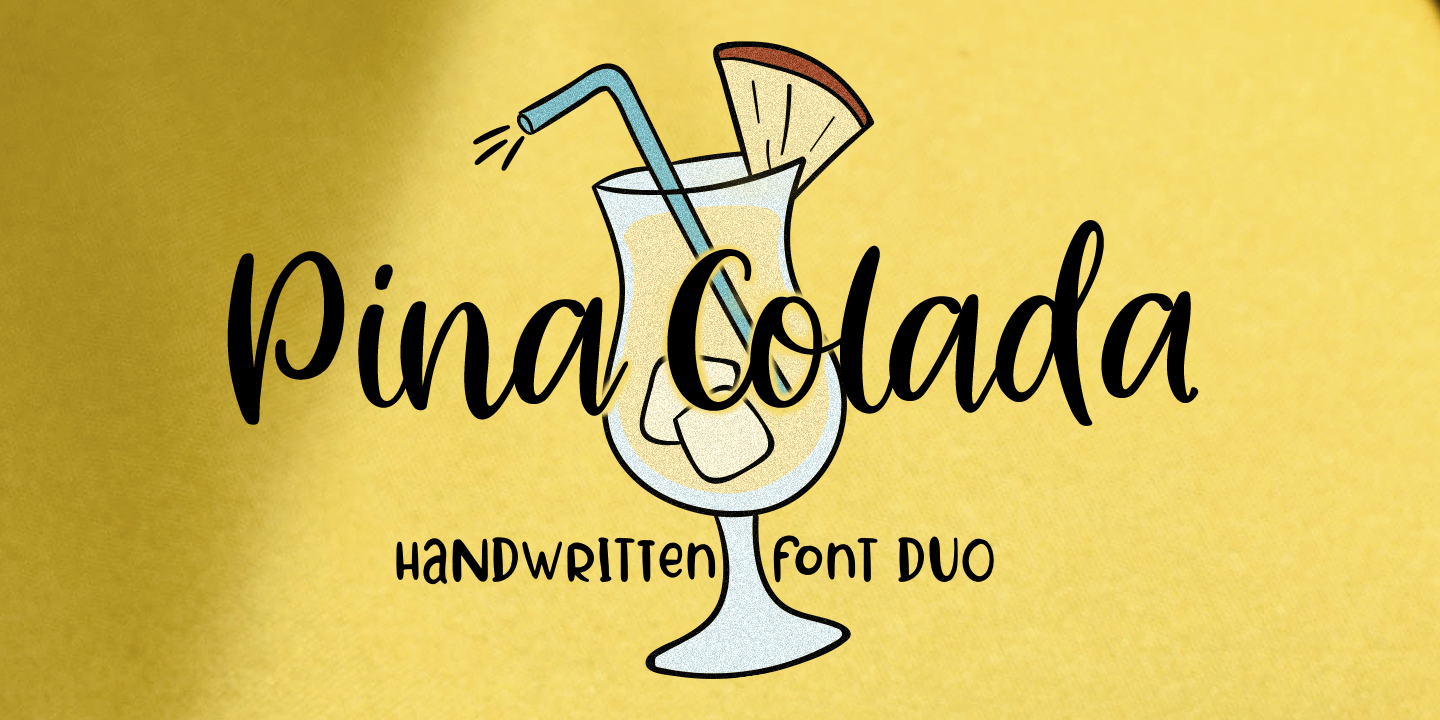
Pina Colada Font is perfect for tropical cocktail bars, beachside restaurant menus, vacation resort branding, summer drink packaging, poolside party invitations, Caribbean cruise promotions, tiki lounge signage, and relaxing spa advertisements. This refreshing typeface excels in leisure hospitality applications, tropical beverage designs, and any project requiring laid-back sophistication that captures the essence of island relaxation and coconut-kissed paradise through smooth visual elegance.
What makes Pina Colada Font exciting is its incredible ability to embody the smooth, creamy essence of tropical luxury and vacation bliss through elegantly flowing letterforms that instantly evoke feelings of paradise relaxation. The font features smoothly crafted characters with tropical curves and coconut-cream proportions that communicate pure vacation indulgence and island sophistication, making it ideal for brands seeking to establish premium tropical connections and convey luxurious escape experiences. Its creamy personality ensures immediate association with tropical luxury and sophisticated relaxation.
Pina Colada Font family includes multiple weights and styles: Regular, Bold, Light, Medium, Italic variations, and coconut-inspired alternates with tropical flourishes and paradise embellishments. Each family member maintains the distinctive smooth character while offering comprehensive design options for luxurious tropical campaigns, from gentle vacation text to creamy headlines that celebrate island luxury and tropical sophistication through elegant beverage-inspired typography.
Whether you're designing tropical luxury brands or creating sophisticated vacation marketing campaigns, Pina Colada Font Free Download provides the perfect typography solution for premium tropical branding needs. This font transforms ordinary text into smooth tropical experiences that communicate island luxury and sophisticated relaxation. Premium tropical resorts and luxury beverage brands choose this typeface for its ability to convey creamy sophistication through elegantly crafted letterforms that flow like silk and taste like paradise.